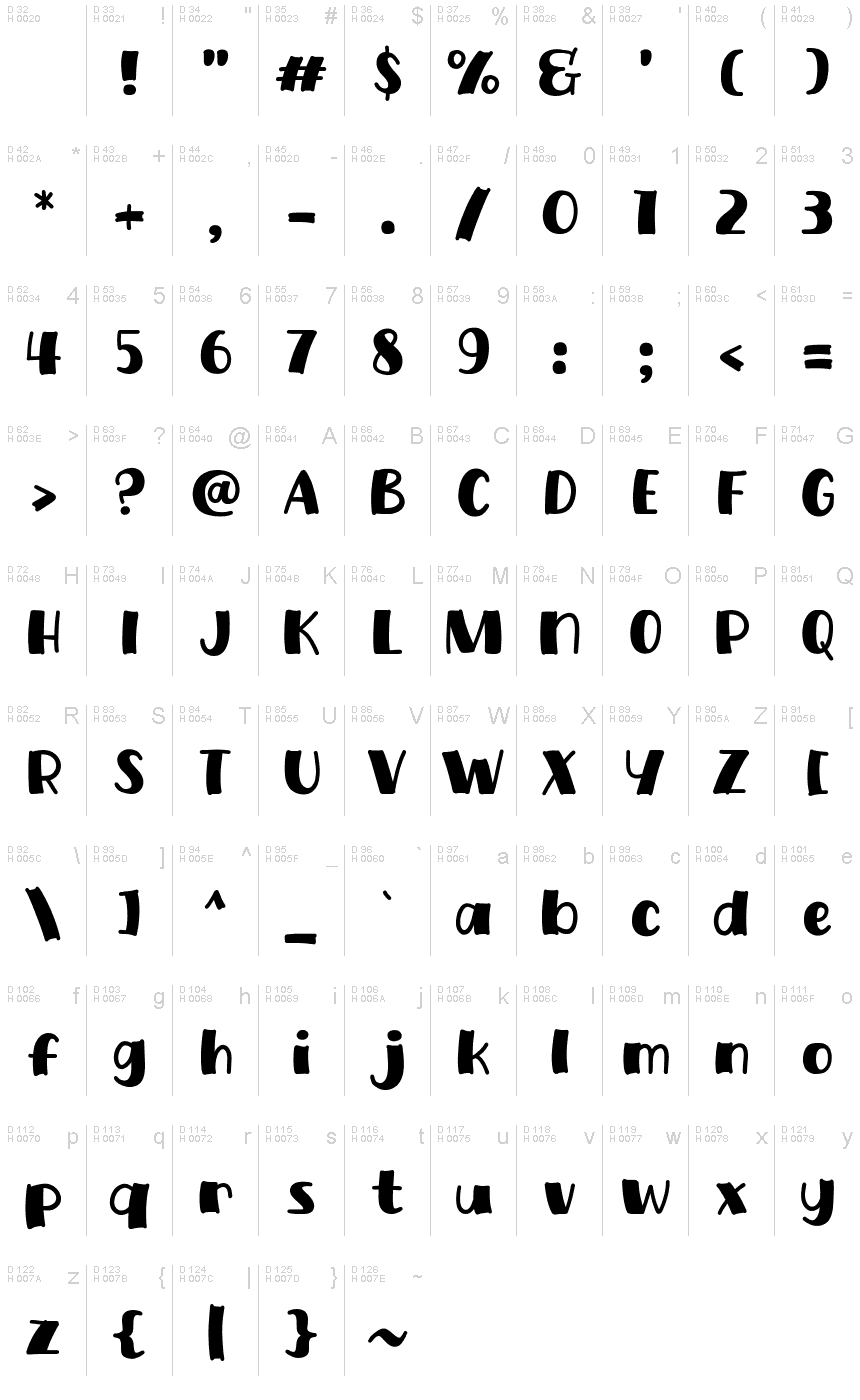
Buk Judes
Buk Judes, a creation by the talented Khurasan, stands out as an extra-bold display font with a cartoon style that exudes a playful and dynamic vibe. Its whimsical curves and exaggerated forms capture the essence of fun and creativity, making it an excellent choice for a variety of design projects that demand attention. The chunky letterforms are not only robust and eye-catching but also convey a sense of friendliness and warmth.
The aesthetic appeal of Buk Judes lies in its ability to bring personality to the table; each character is crafted to ensure maximum impact without compromising readability. This makes it particularly suitable for headlines, posters, children's books, or any project where a touch of lightheartedness is desired. Whether you're aiming to inject some humor into your designs or create bold statements with characterful typography, Buk Judes has the potential to elevate your creative work with its unique charm and style.